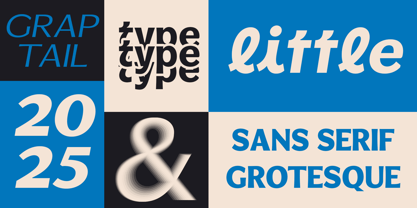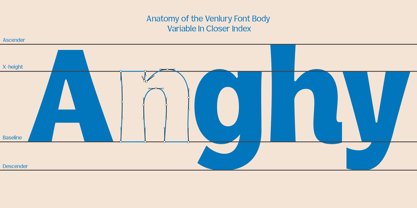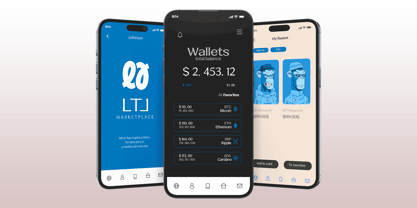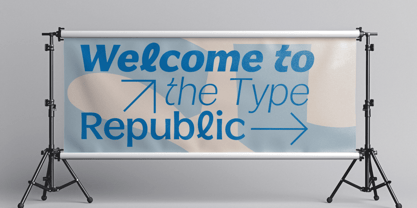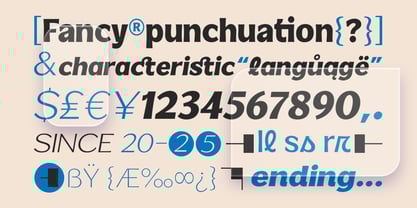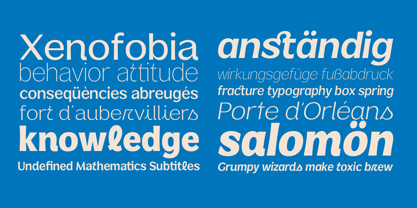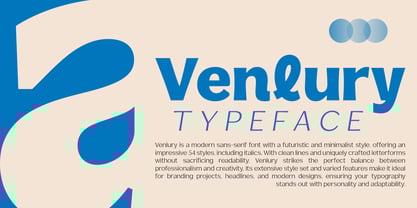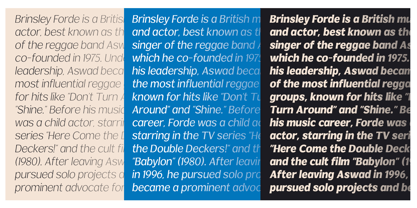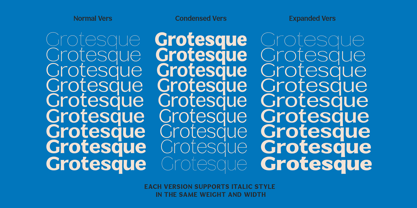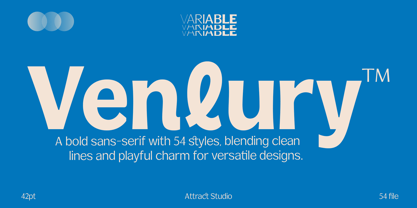
Venlury
by Attract Studio
The Venlury Font Family was designed by Muammar Kadafi and published by Attract Studio. Venlury contains 56 styles and family package options.
Venlury is a modern sans-serif font with a futuristic and minimalist style, offering an impressive 54 styles, including italics. With clean lines and uniquely crafted letterforms without sacrificing readability, Venlury strikes the perfect balance between professionalism and creativity. Its extensive style set and varied features make it ideal for branding projects, headlines, and modern designs, ensuring your typography stands out with personality and adaptability.